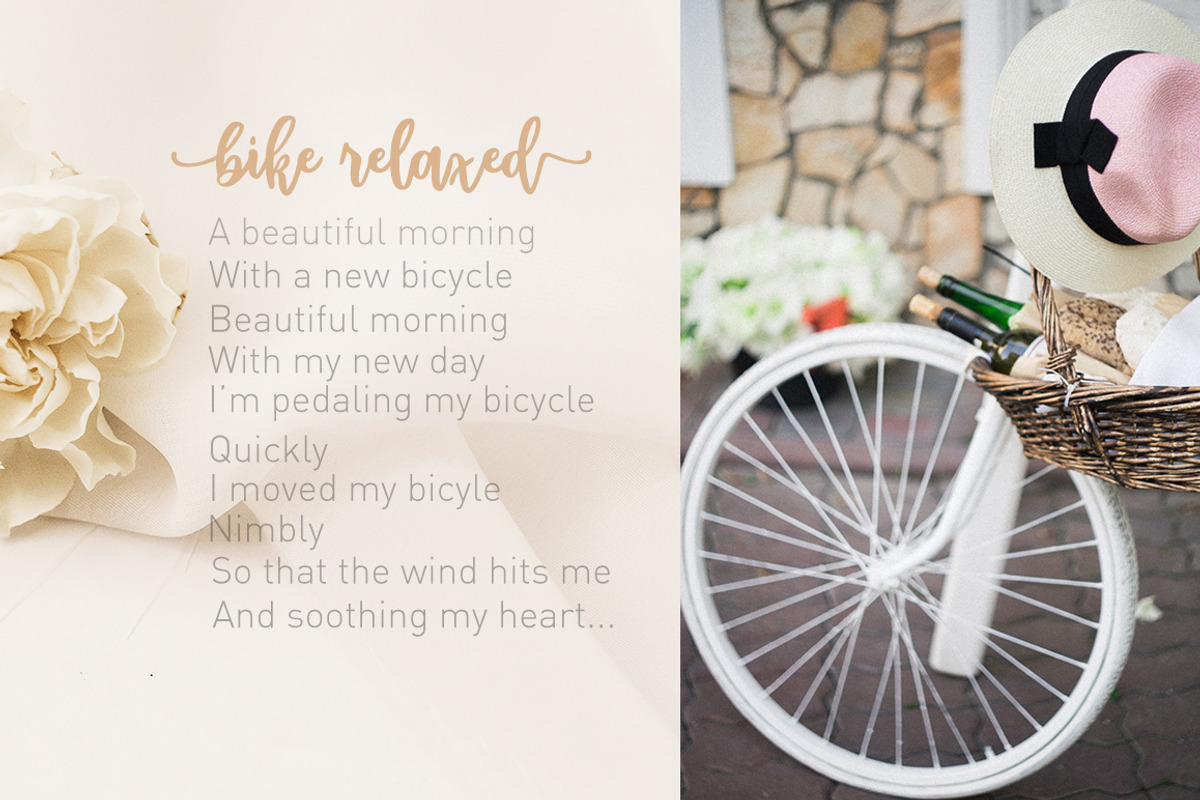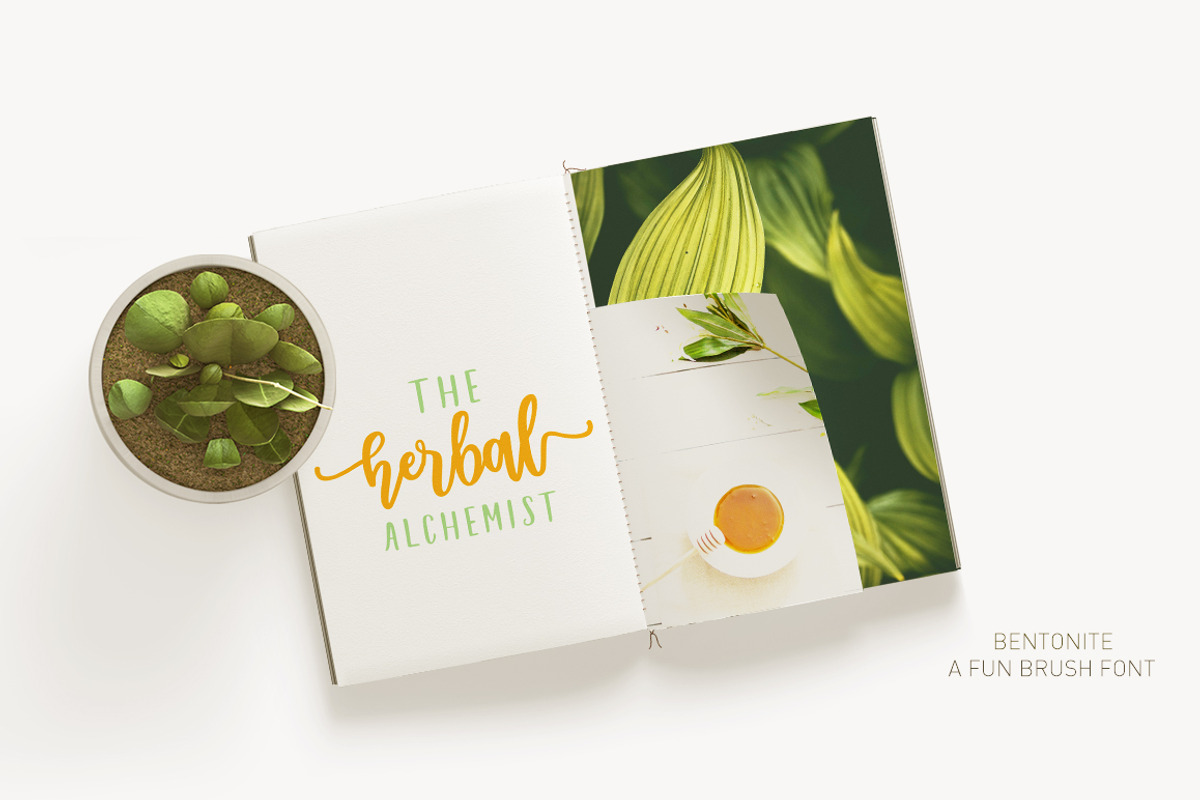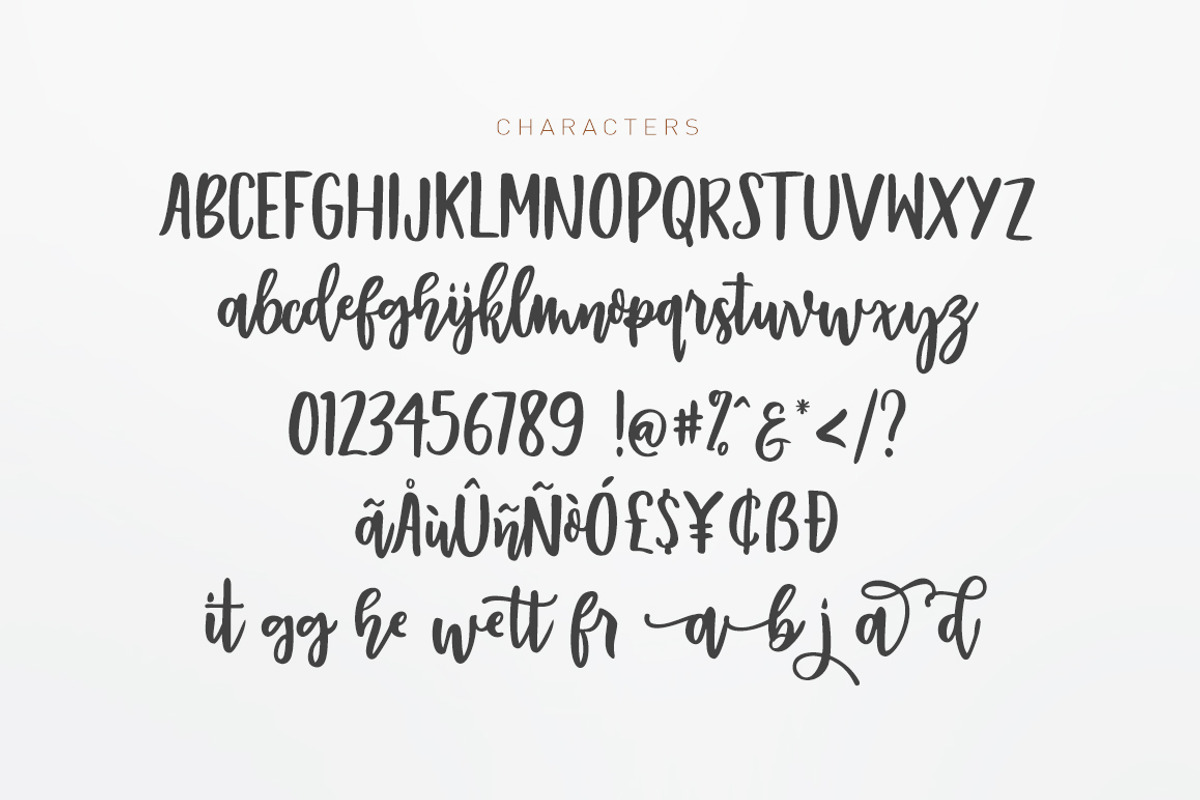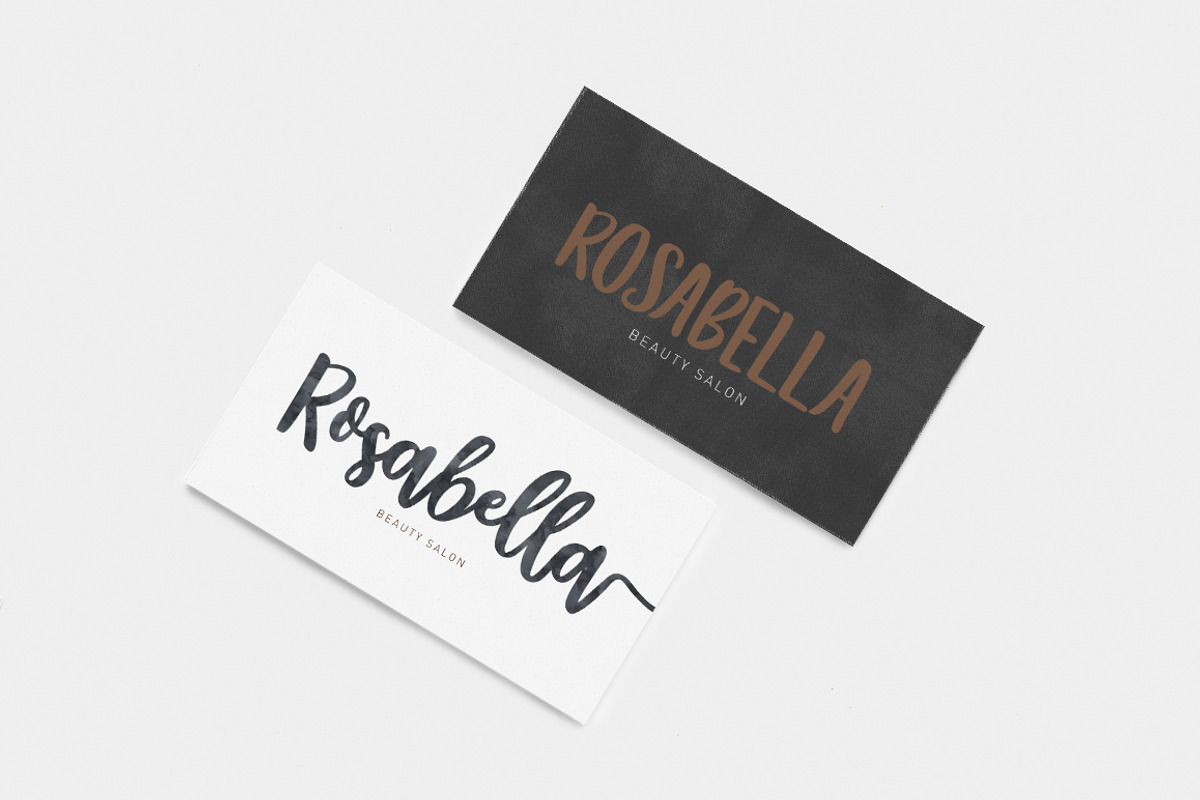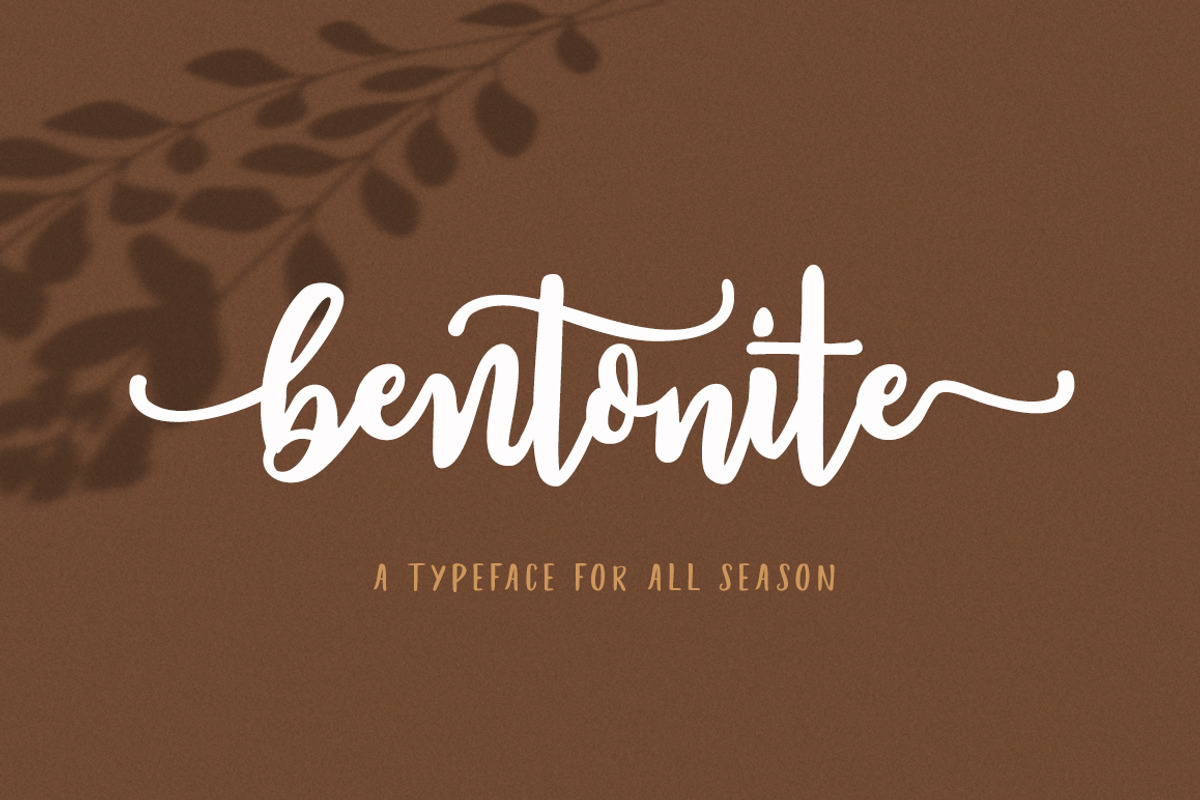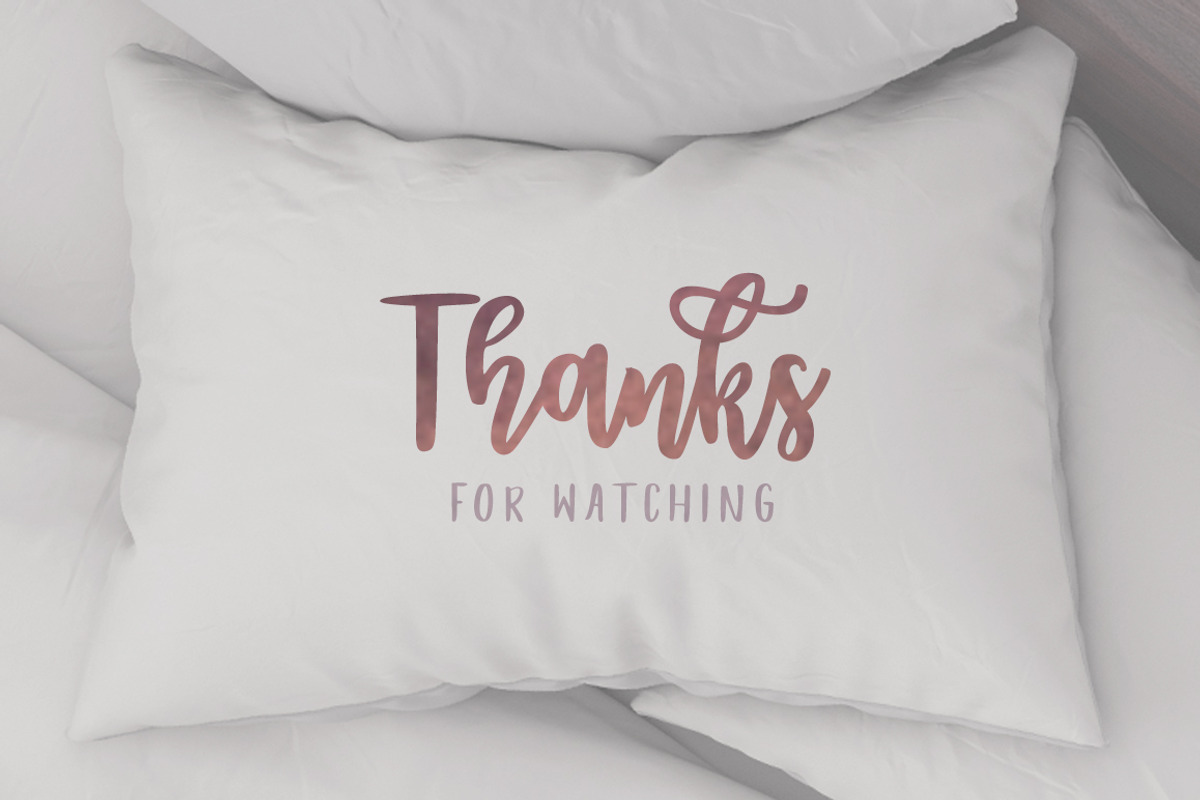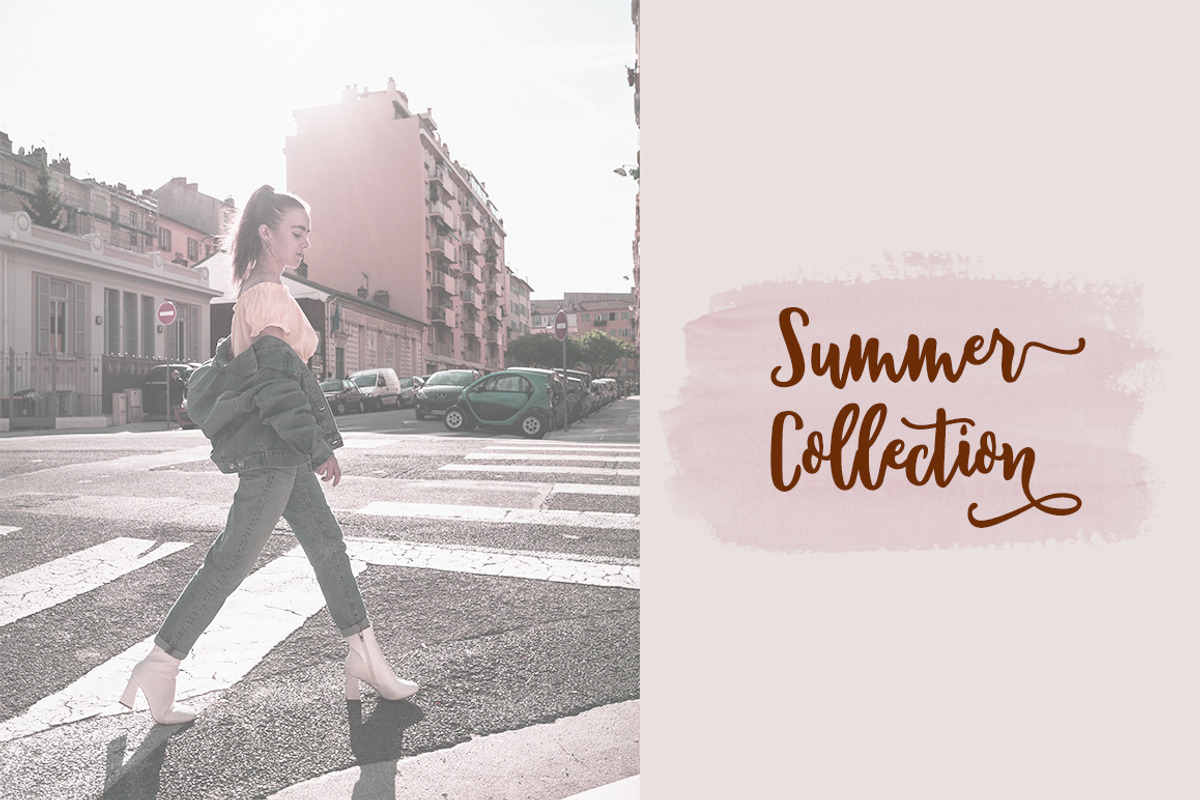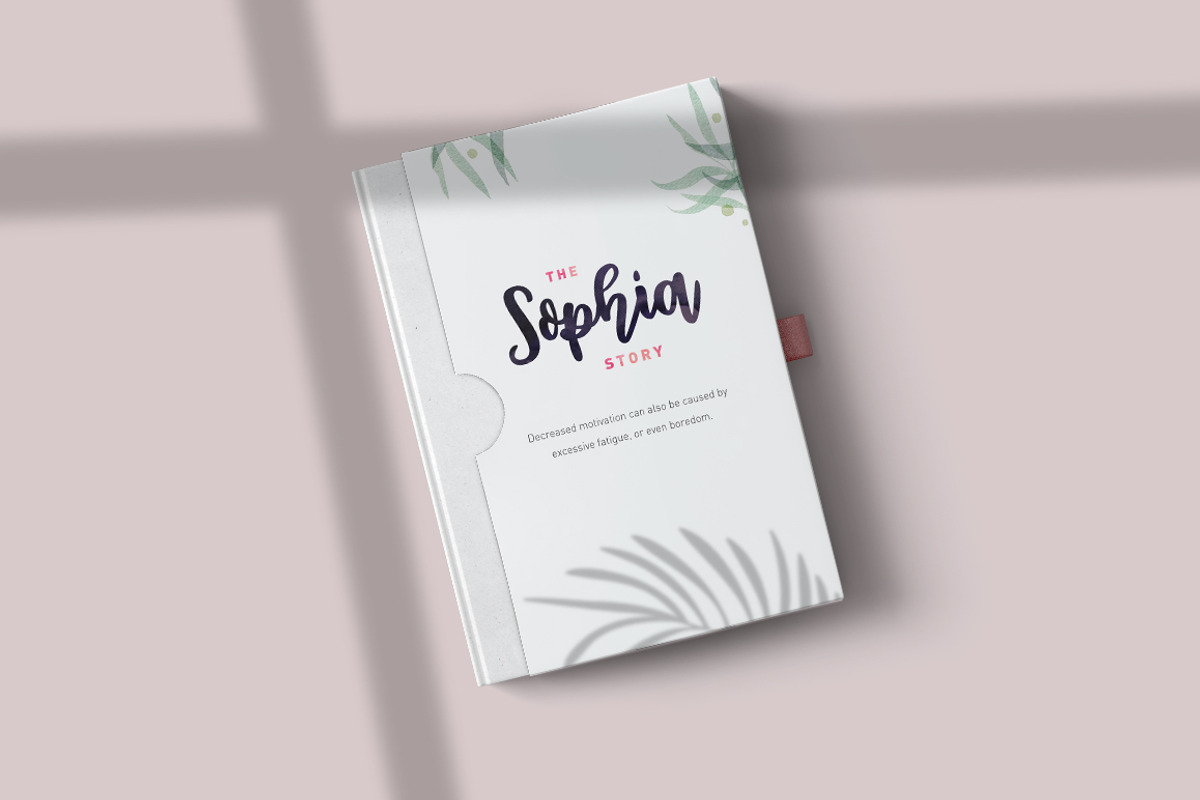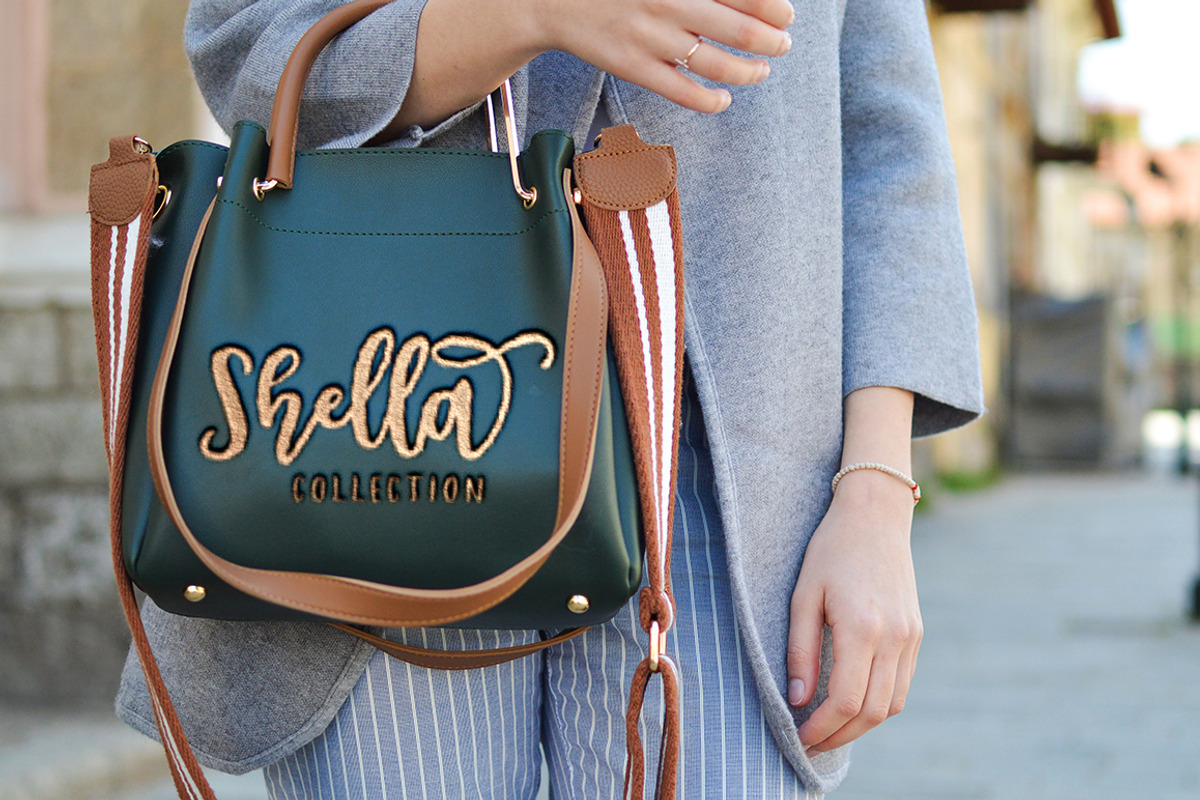
Bentonite Modern brush
Bentonite is a very interesting new brush font. This font family is perfect for branding projects, logos, product packaging, posters, invitations, greeting cards, news, blogs, and more.
The Bentonite offers OpenType features, several ligatures and swashes, initial and terminal letters, and international support for most Western languages.